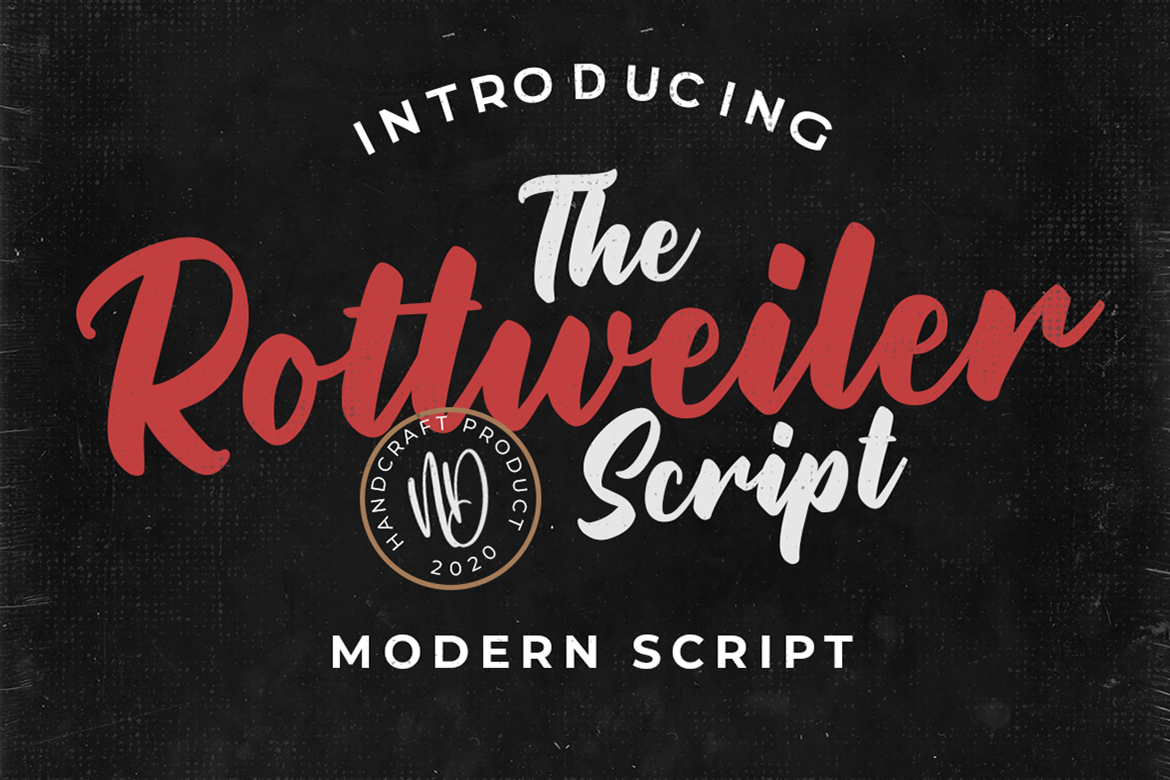
Rottweiler – Modern Script Font
About Rottweiler – Modern Script
Rottweiler is a handwritten font with a classic and retro style. This font is great for your next creative project such as logos, printed quotes, invitations, cards, product packaging, headers, logotypes, letters, posters, apparel designs, labels, and etc. Rottweiler comes with uppercase, lowercase, numerals, punctuations, ligatures & multilingual support characters.